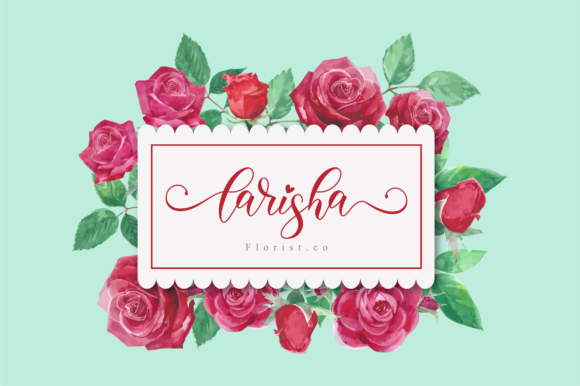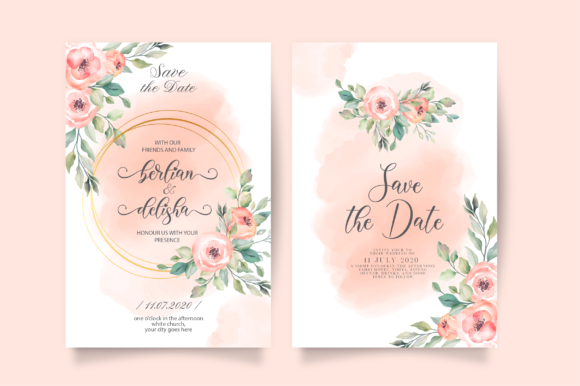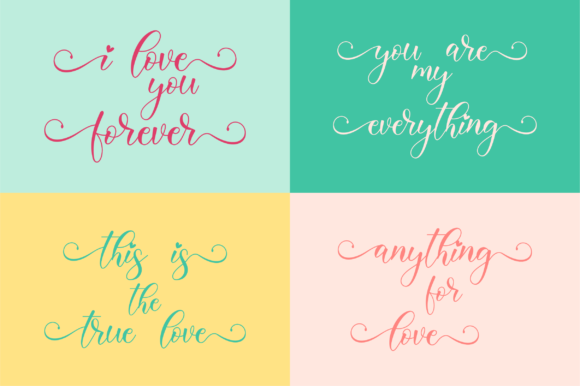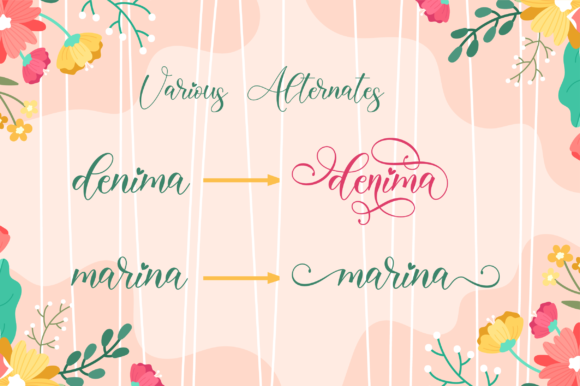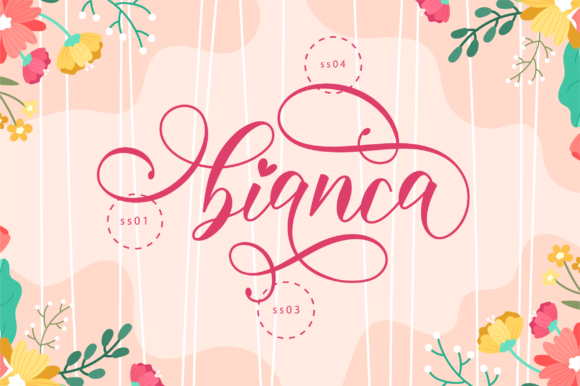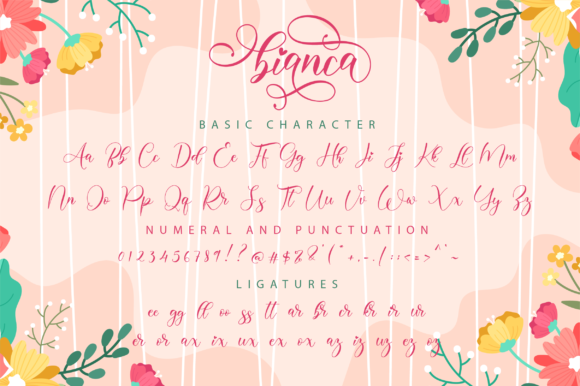
Introducing Bianca Script Font: Elevate Your DIY Projects with Elegance
Bianca is a beautiful and elegant script font. Its modern and classy look makes it the perfect font for creating outstanding DIY projects! In this article, we’ll dive into the world of Bianca Script Font, exploring its features, benefits, and uses, helping designers and crafters unlock its full potential.
The Essence of Bianca Script Font
Bianca Script Font is a stunning, hand-crafted typeface that exudes sophistication and style. Its elegant strokes, precise lettering, and flowing connections make it an ideal choice for projects requiring a touch of refinement. Whether you’re working on a craft project, designing a logo, or creating digital content, Bianca Script Font is sure to impress.
Key Features of Bianca Script Font
• Modern and Classy Design: Bianca boasts a sleek, contemporary look that’s perfect for modern DIY projects.
• Elegant Strokes: The font features smooth, flowing strokes that add a touch of sophistication to any design.
• Precise Lettering: Each letter is carefully crafted to ensure perfect readability and aesthetic appeal.
• Flowing Connections: The font’s connections between letters create a beautiful, fluid look that’s perfect for headings, titles, and quotes.
• Multilingual Support: Bianca Script Font supports multiple languages, making it a versatile choice for global designers and crafters.
Benefits of Using Bianca Script Font
So, why choose Bianca Script Font for your DIY projects? Here are just a few benefits:
• Adds a Touch of Elegance: Bianca instantly elevates your designs, adding a level of sophistication and refinement.
• Versatile: The font is suitable for a wide range of projects, from crafting and scrapbooking to digital design and branding.
• Easy to Read: Bianca’s precise lettering and flowing connections ensure that your text is always easy to read, even at smaller sizes.
• Unique and Creative: With Bianca, you can create unique and eye-catching designs that stand out from the crowd.
Ideas for Using Bianca Script Font
Now that we’ve explored the features and benefits of Bianca Script Font, let’s dive into some project ideas to get you started:
• DIY Crafts: Use Bianca to create beautiful titles, headings, and quotes for your scrapbooking, journaling, or card-making projects.
• Branding and Logo Design: Bianca’s elegant design makes it perfect for logos, business cards, and brand identity materials.
• Digital Design: Add a touch of sophistication to your digital designs, including social media graphics, blog posts, and website headers.
• Signs and Displays: Use Bianca to create eye-catching signs, banners, and displays for events, parties, or business promotions.
Tips for Working with Bianca Script Font
To get the most out of Bianca Script Font, here are a few tips to keep in mind:
• Experiment with Sizes: Bianca looks great at a range of sizes, from small headings to large display text.
• Play with Colors: The font’s elegant design works well with a variety of colors, from bold and bright to soft and pastel.
• Mix and Match: Combine Bianca with other fonts or design elements to create unique and eye-catching compositions.
Font Name Bianca Script Font
Author NissaStudio